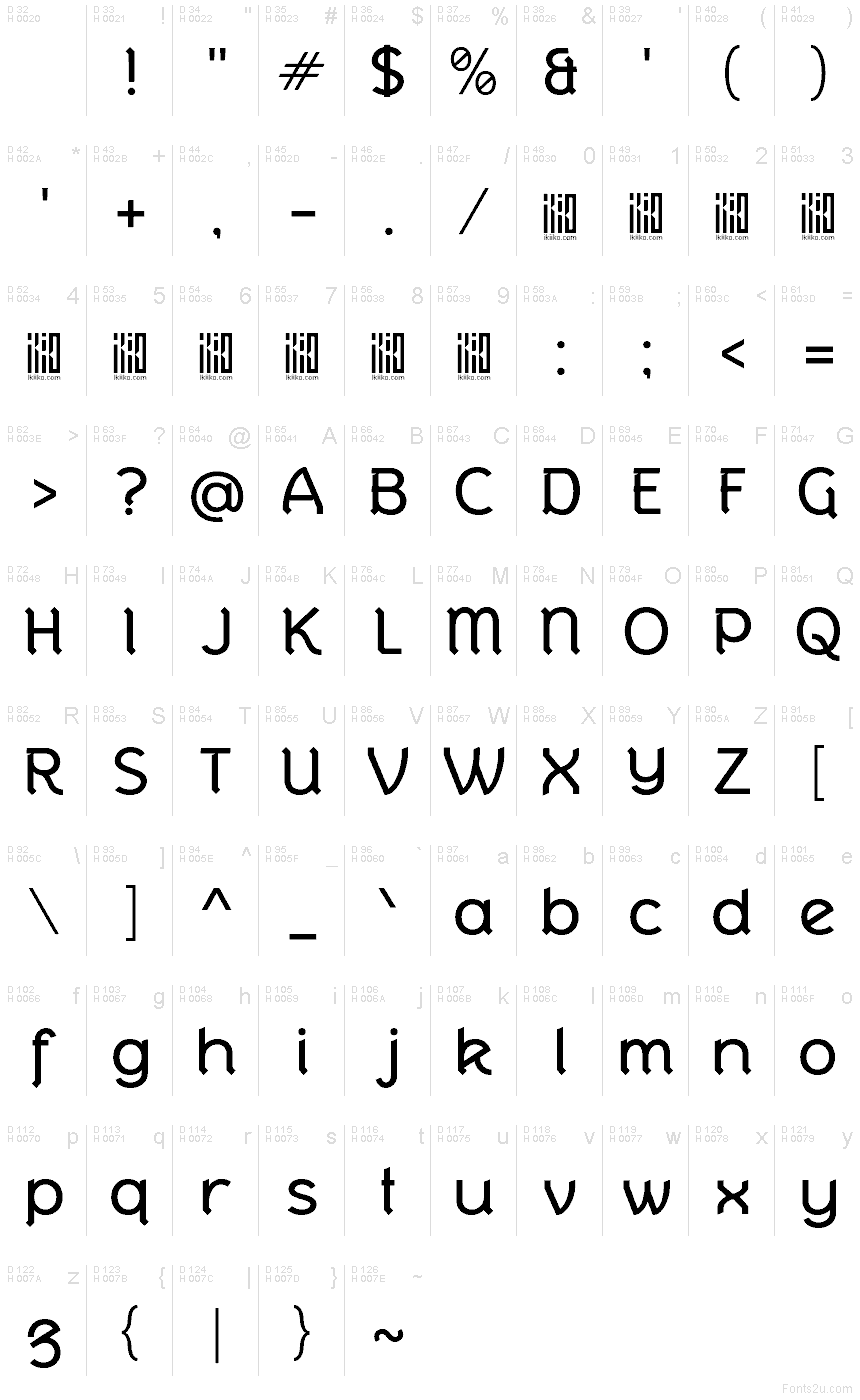
Reinfolk ikiiko.com
Reinfolk font by Ikiiko Type is a free decorative serif typeface. Its charm comes from sculpted wedge serifs and smooth, folk-like curves that feel hand‑cut yet controlled. The letters carry a steady rhythm—sturdy verticals, gentle arches, and crisp angles—so headlines feel artisanal without slipping into kitsch, and short paragraphs stay clear at medium sizes.
Using Reinfolk, branding takes on a crafted, heritage vibe that shines on boutique logos, craft beverage labels, book covers, festival posters, café menus, and editorial titles. The spacing is tight enough to feel cohesive; add a touch of tracking for smaller settings. Pair it with a calm grotesque sans to keep layouts grounded and let this free font provide the character.